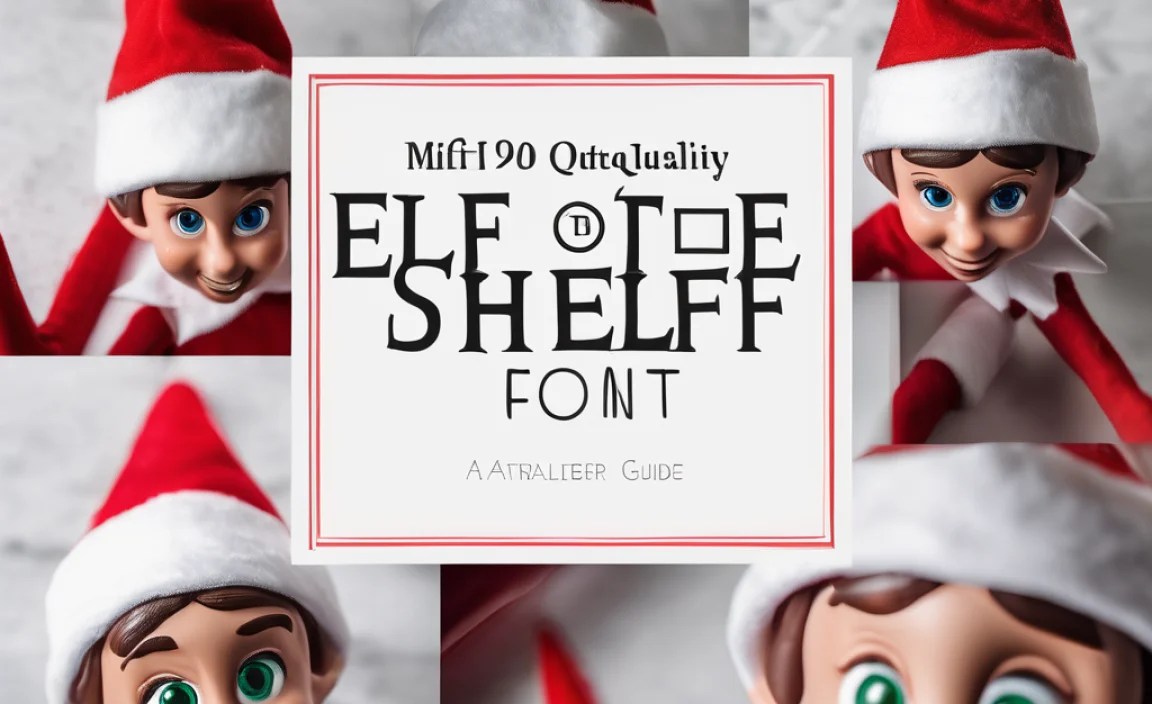
The Elf on the Shelf font is a whimsical and festive typeface inspired by the beloved Christmas tradition of the Scout Elf. This font captures the magic of the holiday season, bringing a playful yet classic style that perfectly fits Christmas magic themes. Whether you’re designing a shelf arrival letter, personalized letter, or shelf letter template, the Elf font adds a touch of nostalgia and charm to any project.
Elf On The Shelf Font Family And Styles
The Elf on the Shelf font typically falls under the decorative and script font categories, embodying a handwritten, storybook-like quality reflecting the Christmas season’s joy. The most recognized font associated with Elf on the Shelf is similar to a serif or script font with playful, slightly curved edges.
While the official Elf on the Shelf branding uses a custom typeface, some fonts closely resemble it, including:
- Merry Christmas Script – A flowing script with a holiday feel
- Christmas Story Font – A serif-style font with a vintage touch
- North Pole Script – A handwritten, festive option perfect for Santa Claus letters
Features Of The Elf On The Shelf Font
- Playful yet classic script style
- Works well with Christmas-themed designs
- Ideal for shelf letters, holiday graphics, and messages
| Font Type | Script, Decorative |
| Designer | Various designers (based on similar fonts) |
| Style | Whimsical, Holiday, Serif |
Where to Use Elf on the Shelf Font?
This Christmas magic font is perfect for:
- Personalized letters – Create a Santa Claus letter for kids
- Shelf letter templates – Design fun messages from the Scout Elf
- Christmas tree decorations – Add festive lettering to ornaments
- Holiday season cards – Perfect for invitations and greeting cards
- Canva and Etsy designs – Sell Christmas season digital products
- Christmas morning surprises – Make customized messages for kids
- Browser images and illustrations – Use for holiday-themed graphics
Similar Fonts to Elf on the Shelf
If you’re looking for fonts similar to the Elf font, consider these:
- Jolly Christmas – A bold, fun font for festive designs
- Candy Cane Script – A swirly script with a Christmas feel
- Santa’s Sleigh Font – A serif-style font with holiday charm
- North Pole Lettering – Great for Christmas tree tags and labels
Frequently Asked Questions
What Font Style Is Elf On The Shelf?
It combines decorative script and serif, often resembling classic holiday fonts.
Does The Font Support Different Category Headings?
Yes, many versions offer bold and italic styles for different headings.
Is There A Specific Font Used For Elf On The Shelf Letters?
While no official font is released, fonts like “Merry Christmas Script” or “North Pole Script” are close alternatives.
What’s The Best Way To Pair The Elf On The Shelf Font With Other Fonts?
Pair it with a clean sans-serif or decorative serif font to balance the festive style.